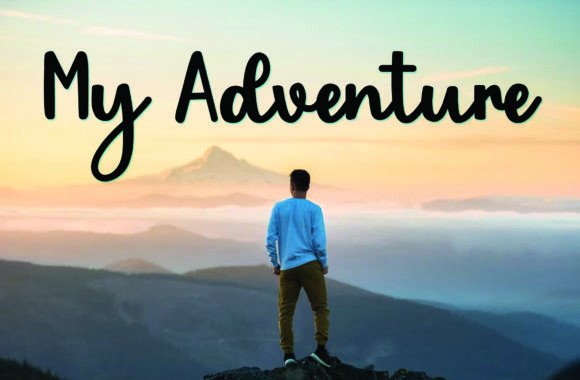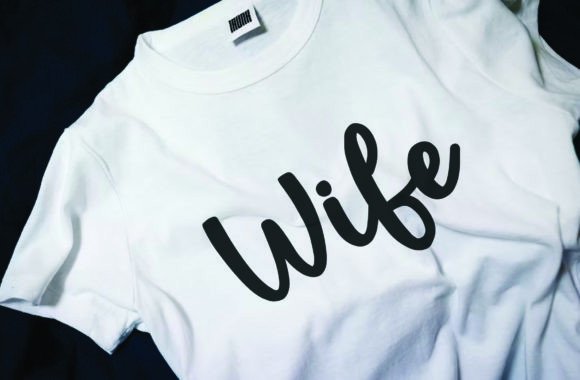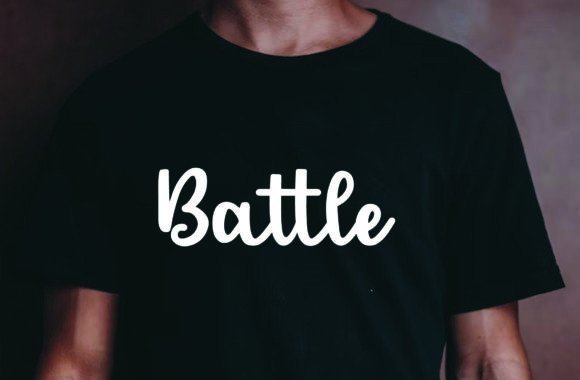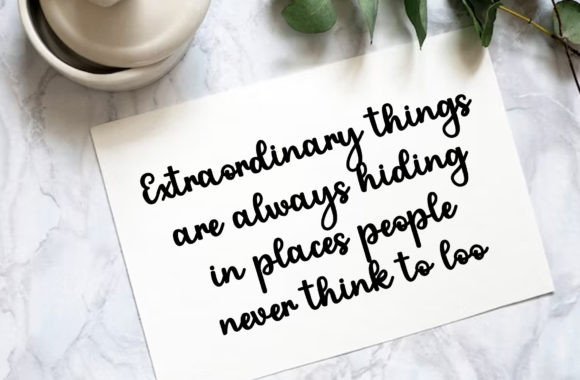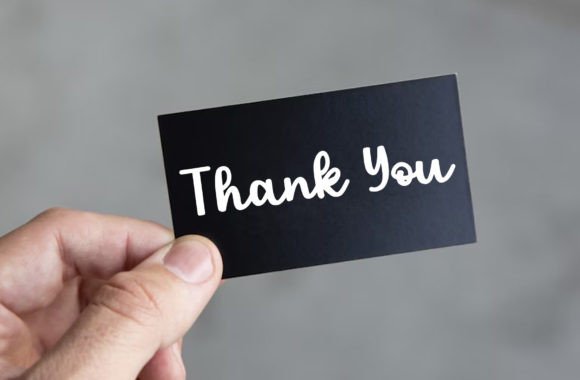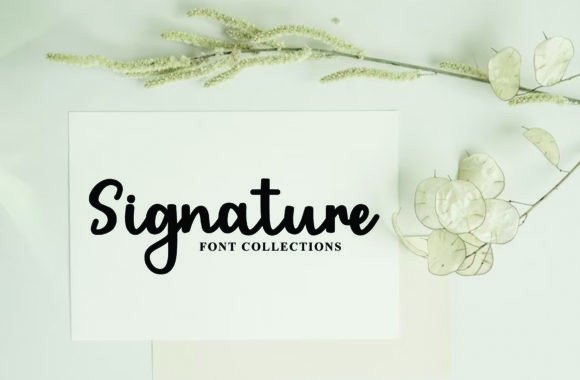
Introducing Blind Font: The Elegant and Charming Handwritten Font
Are you a designer or crafter looking for a font that adds a touch of elegance and charm to your designs? Look no further than Blind Font. This beautiful handwritten font is perfect for a variety of projects, from wedding invitations and thank you cards to quotes, greeting cards, logos, and business cards.
What is Blind Font?
Blind Font is a carefully crafted handwritten font that exudes a sense of sophistication and refinement. Its elegant strokes and flowing lines make it perfect for designs that require a personal touch. Whether you’re creating a romantic wedding invitation or a professional business card, Blind Font is sure to impress.
Characteristics of Blind Font
So, what makes Blind Font so special? Here are a few of its key characteristics:
- Elegant and charming: Blind Font has a unique and captivating charm that will add a touch of sophistication to any design.
- Handwritten feel: This font has a beautiful, handwritten feel that’s perfect for designs that require a personal touch.
- Versatile: Blind Font can be used for a wide range of projects, from wedding invitations and greeting cards to logos and business cards.
- Easy to read: Despite its elegant and cursive nature, Blind Font is easy to read and understand, making it perfect for designs that require a clear message.
Uses of Blind Font
Blind Font is an incredibly versatile font that can be used for a wide range of projects. Here are a few ideas to get you started:
- Wedding invitations: Add a touch of elegance and romance to your wedding invitations with Blind Font.
- Thank you cards: Express your gratitude in style with Blind Font.
- Quotes and posters: Add a touch of sophistication to your quotes and posters with Blind Font.
- Greeting cards: Create beautiful and elegant greeting cards for any occasion with Blind Font.
- Logos and branding: Use Blind Font to create a unique and memorable logo for your business or brand.
- Business cards: Stand out from the crowd with elegant and professional business cards featuring Blind Font.
Tips for Using Blind Font
Here are a few tips for using Blind Font in your designs:
- Pair with a simple background: Blind Font looks best when paired with a simple background that doesn’t compete with the font.
- Use a elegant color scheme: Choose a color scheme that complements the elegance of Blind Font.
- Experiment with different sizes: Blind Font looks great in a variety of sizes, so don’t be afraid to experiment.
Blind Font is a beautiful and elegant handwritten font that’s perfect for designers and crafters looking to add a touch of sophistication to their designs. With its versatile nature and easy-to-read style, Blind Font is sure to become a favorite in your font collection. So why wait? Download Blind Font today and start creating stunning designs that will leave a lasting impression.